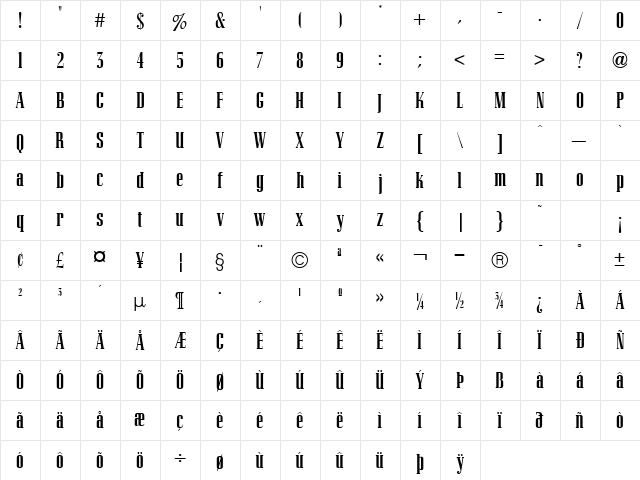
Corvinus Skyline ICG Regular
Design Context for Corvinus Skyline ICG Typeface
Corvinus Skyline ICG takes a measured approach to typography — its balanced proportions and neutral character make it a reliable workhorse for both digital and print work.